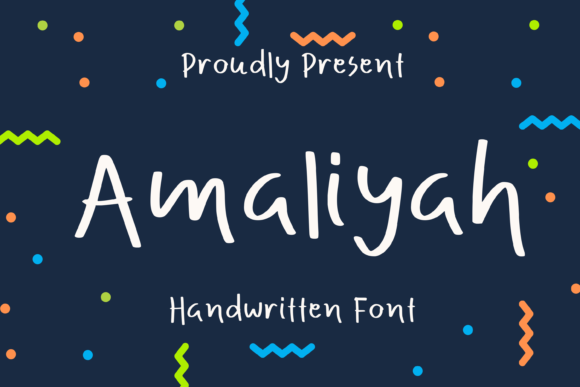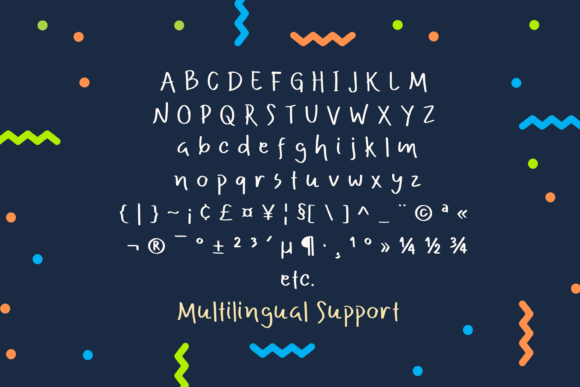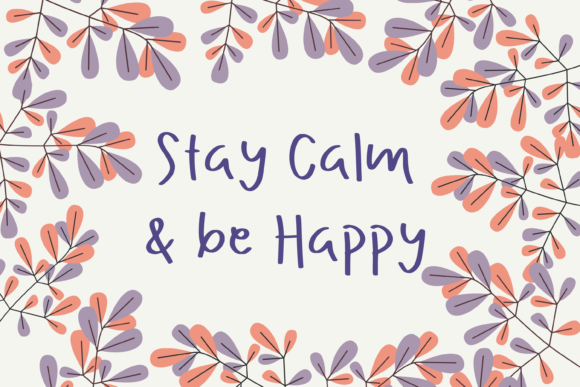
About Amaliyah Font
Amaliyah is a charming and versatile handwritten font that exudes a smooth and friendly vibe. Its casual and joyful style adds a touch of warmth and approachability to your designs. Whether you’re working on personal projects, branding, social media graphics, or any other creative endeavor, Amaliyah is sure to bring a delightful and down-to-earth feel.
One of the standout features of Amaliyah is its smooth letterforms, which flow seamlessly and create a harmonious visual appeal. The font’s friendly and relaxed nature makes it highly readable, ensuring that your message is easily conveyed to your audience.
Amaliyah’s versatility allows it to shine in various design contexts. It complements a wide range of themes and applications, including quotes, greeting cards, logos, packaging, and more. Whether you’re aiming for a whimsical and playful look or a warm and inviting atmosphere, Amaliyah adapts effortlessly to your creative vision.
To make the most of Amaliyah, consider experimenting with different weights, sizes, and colors to achieve the desired impact. The font’s smooth curves and consistent stroke width create a harmonious balance, making it visually pleasing at any scale.
The joyful and approachable nature of Amaliyah makes it a perfect choice for personal projects, such as journaling, scrapbooking, or creating handmade cards. It also adds a friendly touch to professional designs, adding a sense of authenticity and relatability.
In summary, Amaliyah is a smooth and friendly handwritten font that brings a casual and joyful style to your designs. Its versatility, readability, and down-to-earth appeal make it a valuable asset for a wide range of creative projects. Embrace your creativity and explore the endless possibilities that Amaliyah offers.